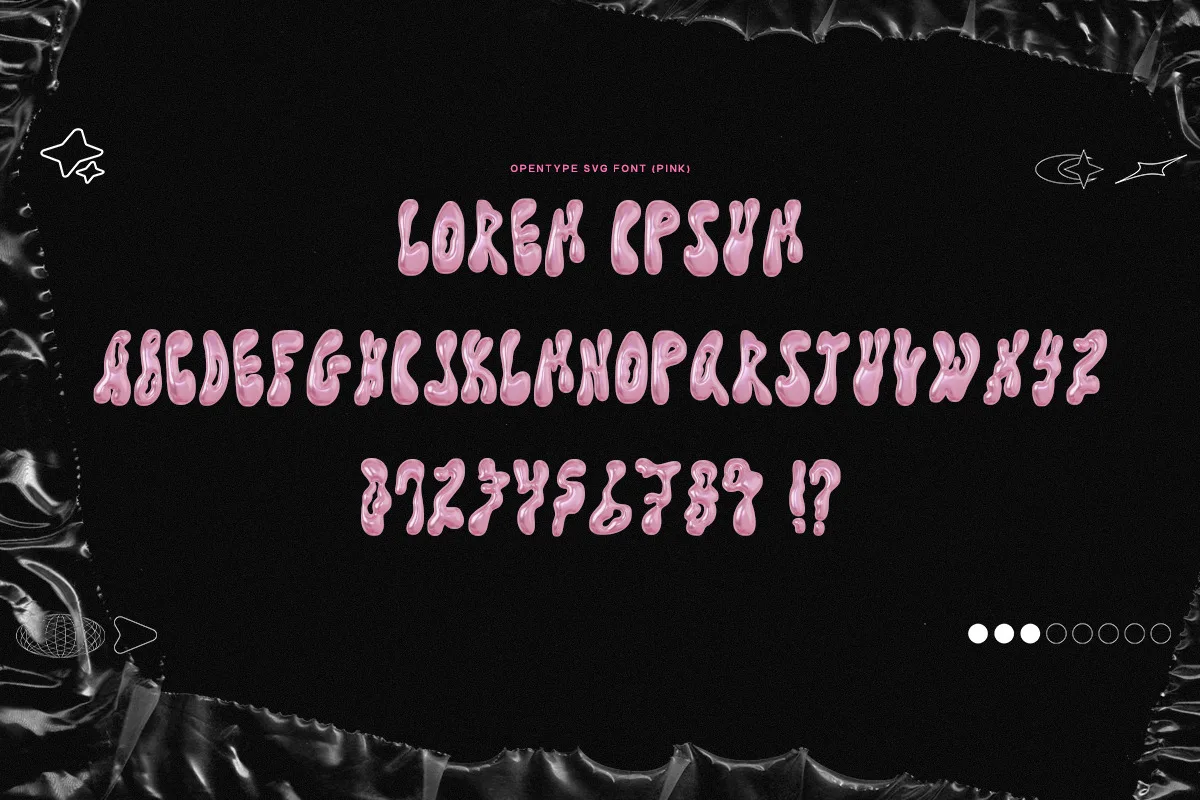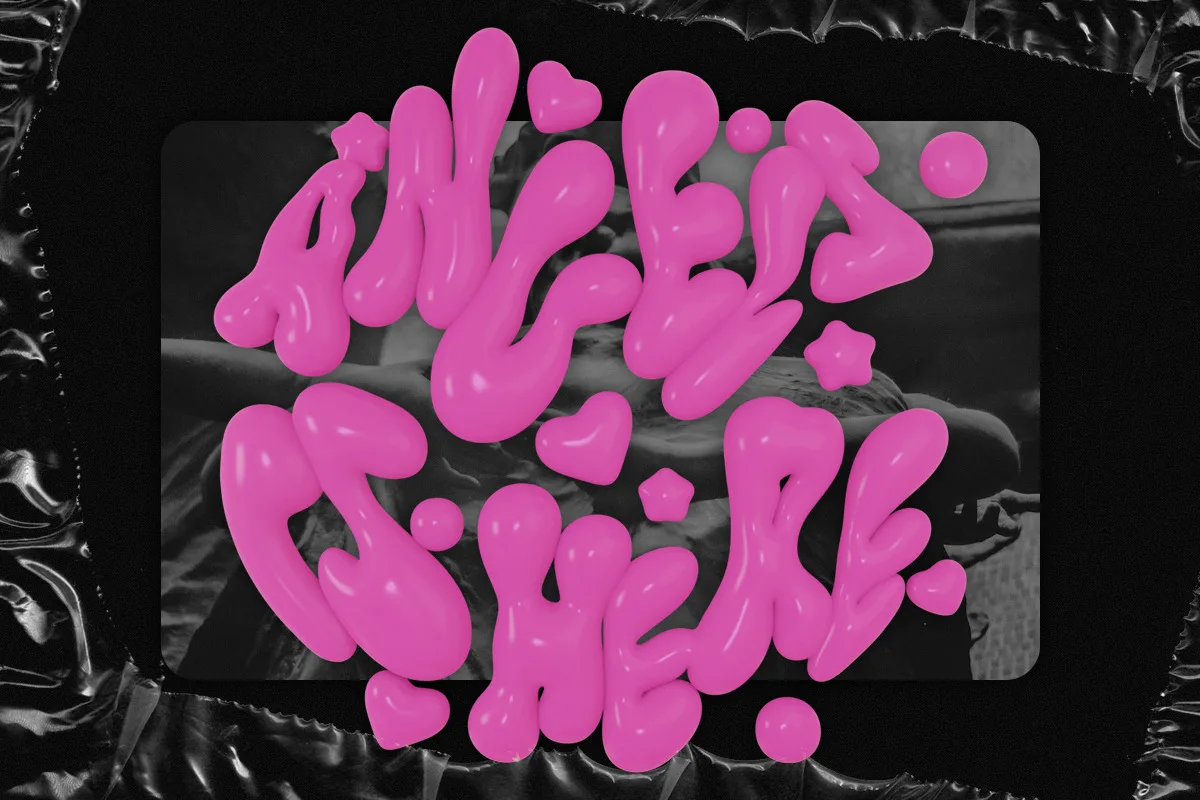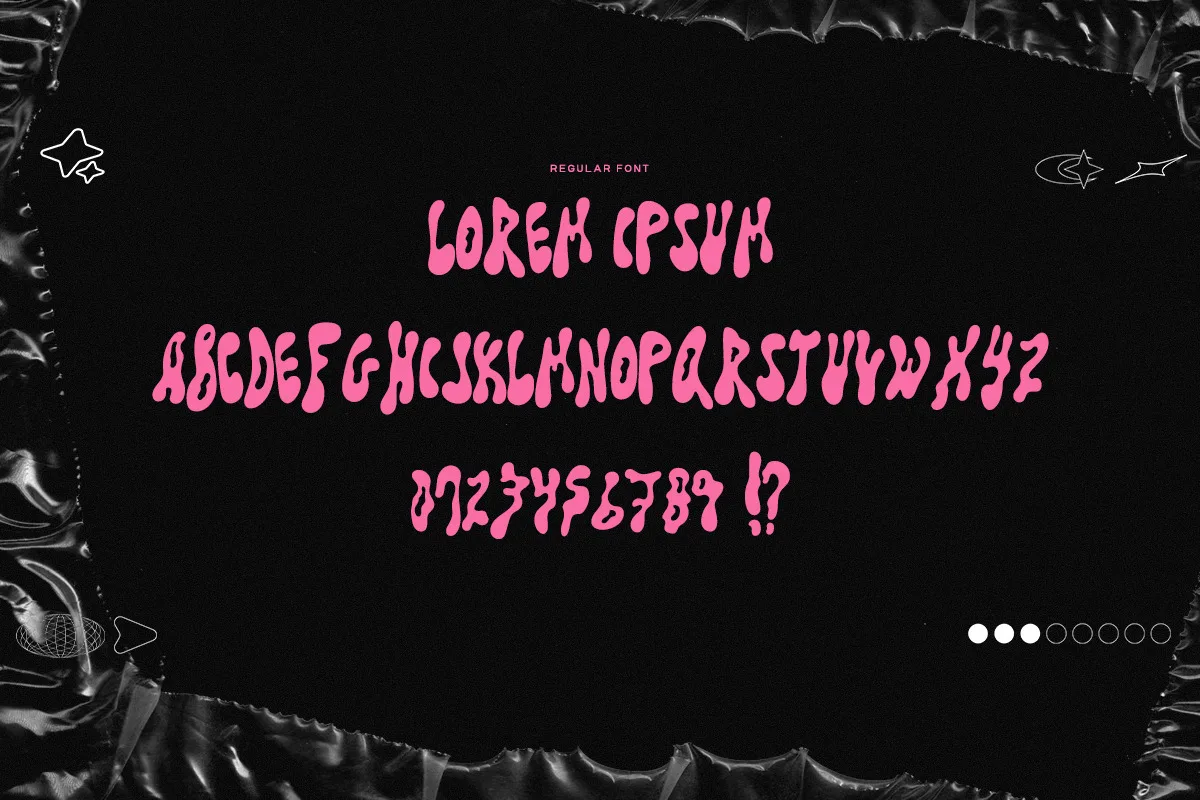
Angel Kiss is A Divine Fusion of Elegance and Fluidity! Unleash the magic of typography with our latest creation: Angel Kiss, a liquid display font that transcends boundaries. This font is more than just letters; it’s an art form in every stroke, curated to bring your designs to life.
Angel Kiss doesn’t just stop at aesthetics; it embraces the Latin alphabet with grace and sophistication. Every character is a testament to the perfect blend of style and readability.
This font isn’t just a tool; it’s an experience. The fluidity of Angel Kiss ensures that each letter seamlessly merges with the next, creating a visual dance that captivates your audience.